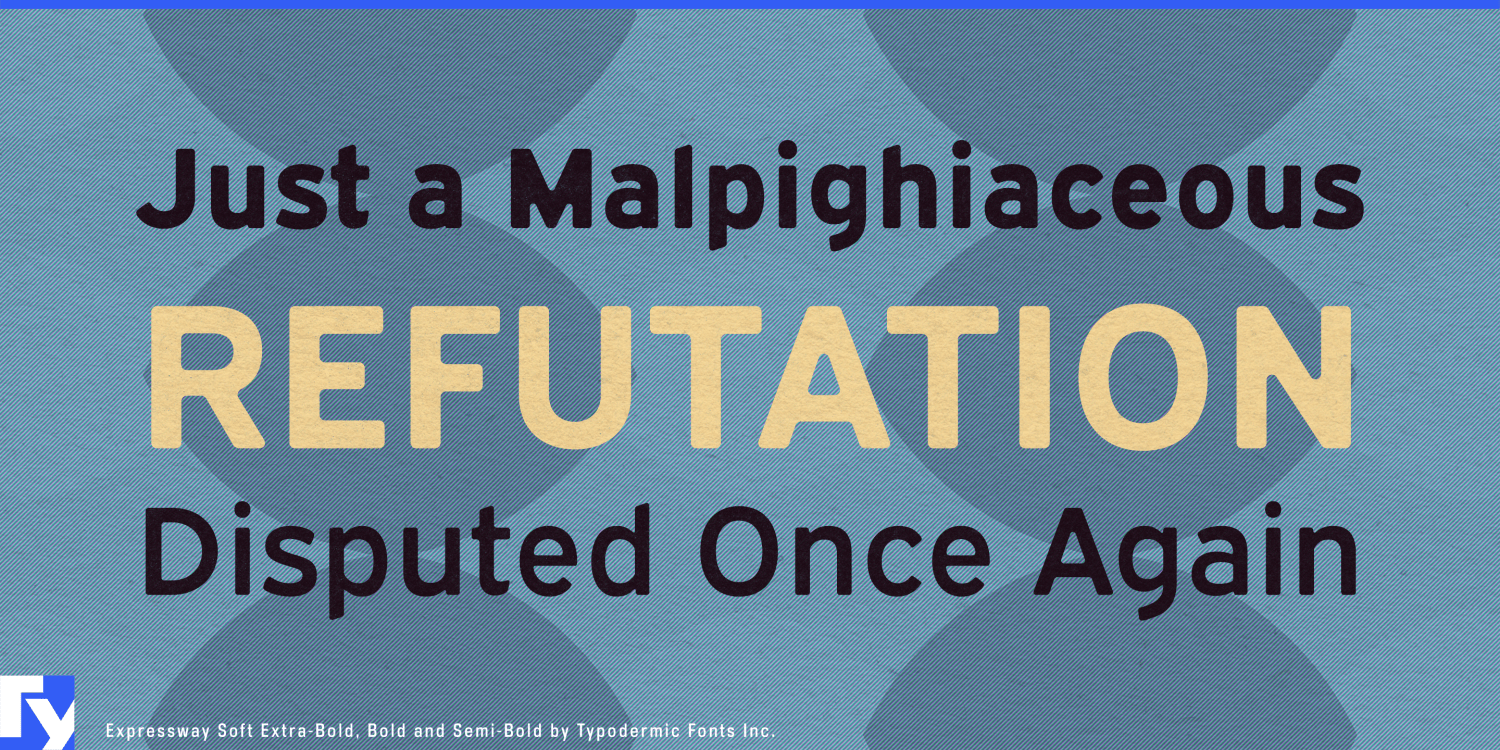
Expressway Soft Font Free Download - Web 248,882 downloads (35 yesterday) 100% free. Web download free expressway font by typodermic fonts. Expressway is a free font for commercial use created by raymond. Department of transportation’s fhwa series of standard. It is sans serif font and has 2 styles.
Expressway Soft Font Free Download - Web download and install the expressway font by typodermic fonts. Web download free expressway font by typodermic fonts. Expressway is a free font for commercial use created by raymond. A sans serif typeface with 14 styles, available from adobe fonts for. Web explore expressway designed by ray larabie at adobe fonts.
Expressway Soft Font Free Download - Department of transportation’s fhwa series of standard. Expressway is a free font for commercial use created by raymond. Web expressway font download is available free from fontget. A sans serif typeface with 14 styles, available from adobe fonts for. It is sans serif font and has 2 styles.